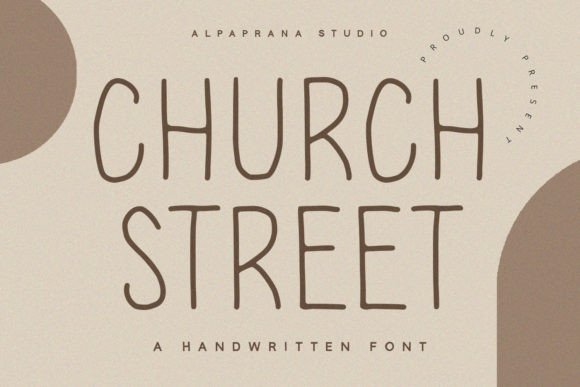
Step into the realm of handwritten elegance with Chruch Street Font, a creation of alpapranastudio that will leave you spellbound. This font family, belonging to the script category, is a true masterpiece, meticulously crafted to capture the essence of natural and modern aesthetics. Journey through a world of limitless possibilities with this captivating font, designed to be your perfect companion for a wide array of projects.
With Chruch Street Font, you'll discover a versatile and expressive tool that breathes life into your creative endeavors. Its delicate strokes and flowing curves evoke a sense of authenticity, making it the ideal choice for branding, logo design, and lettering projects. Imagine your designs adorned with the alluring charm of Chruch Street, captivating your audience with its distinctive style.
Unleash your creativity and let Chruch Street Font guide you towards remarkable logotype creations. Experiment with its beautiful characters to craft logos that exude elegance and sophistication, leaving a lasting impression on your clients. The possibilities are endless, as this versatile font seamlessly adapts to various design styles, ensuring that your creations stand out from the crowd.
Let your imagination soar as you explore the boundless applications of Chruch Street Font. Picture your clothing line adorned with eye-catching designs, effortlessly conveying your brand's personality and captivating the hearts of fashion-forward consumers. Create posters and magazine covers that radiate an aura of sophistication, drawing readers into your captivating stories and visuals.
With Chruch Street Font, you have the power to transform ordinary designs into extraordinary works of art. Its timeless beauty adds a touch of elegance to packaging, shopping bags, and t-shirts, creating products that resonate with your customers' sense of style. Whether you're designing book covers, photography projects, or special event invitations, Chruch Street Font will elevate your creations, adding a layer of refinement and allure.
Embrace the allure of Chruch Street Font and embark on a creative journey that knows no bounds. Let its graceful strokes guide you as you create designs that capture hearts and minds. Experience the magic of handwritten elegance and redefine your creative horizons with this exceptional font family.